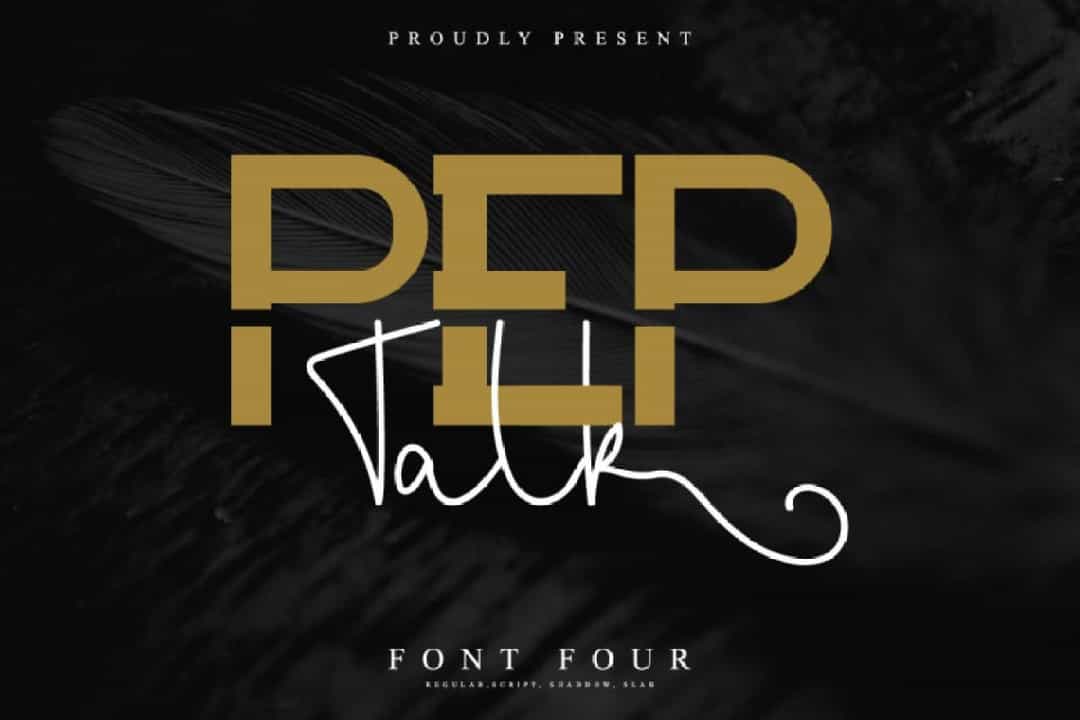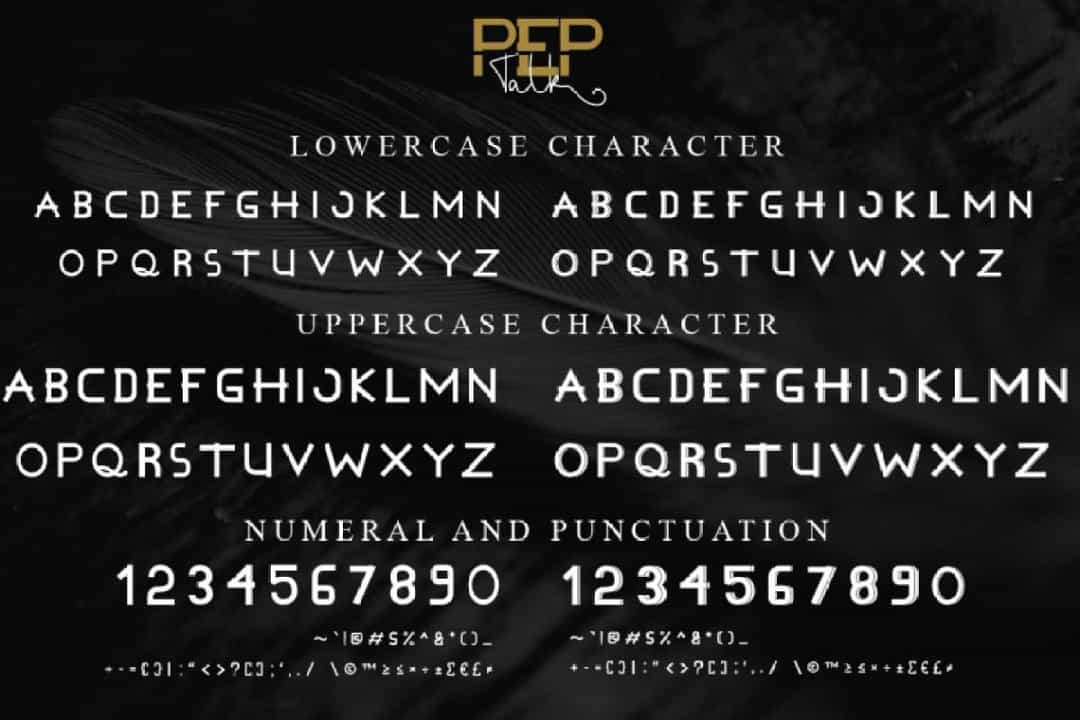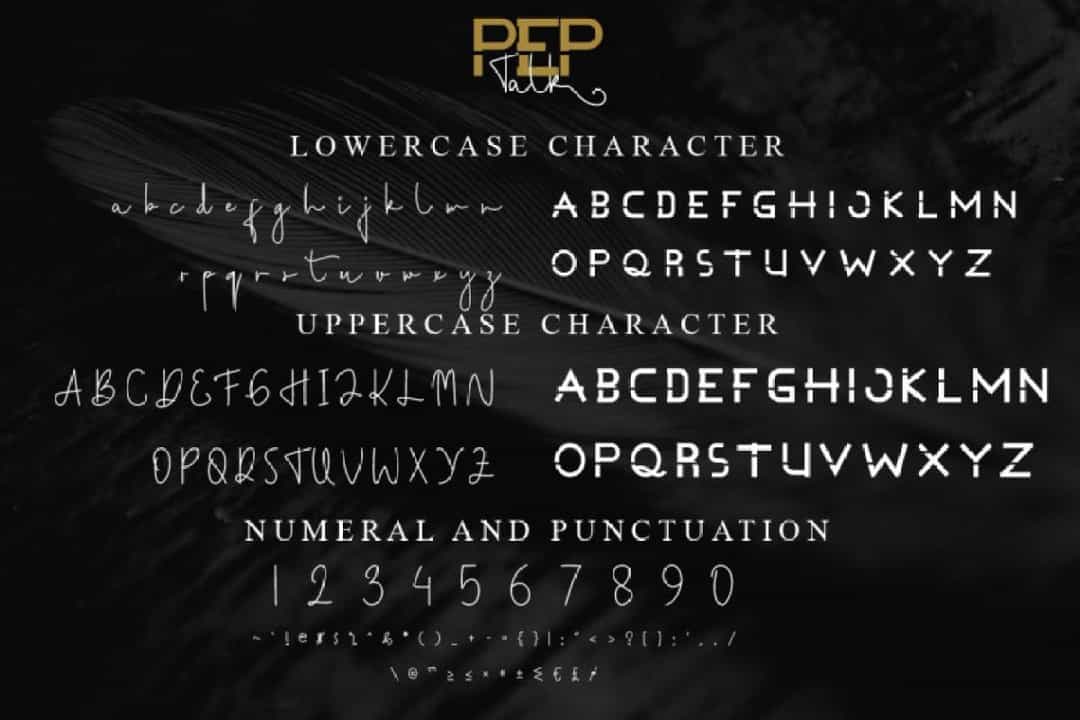
Pep Talk Duo is a brand new font family that containing elegant handwriting signatures in script. This font which has a style of new modernism, naturalistic look and beautiful letters of Pep Talk can be used in branding, logo design, photographs, or signature purposes. Pep Talk will be elegant, classy, and gorgeous on any page or image!